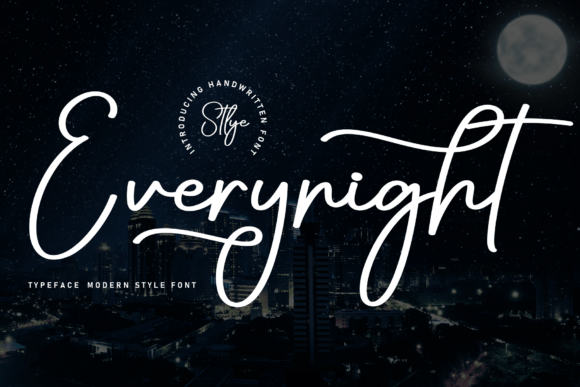
Journey into the realm of elegance and sophistication, where words dance across the screen with grace and charm. Meet Everynight Font, a script font family that captivates the senses with its mesmerizing beauty and handwritten flair. Crafted by the talented andikastudio, Everynight Font is the ultimate choice for designers seeking to elevate their projects to new heights of visual appeal.
With Everynight Font, your designs will transcend the ordinary and enter the extraordinary. Its intricate ligatures and delicate swashes intertwine to create a stunning symphony of visual harmony. Let your imagination soar as you witness your words transform into captivating works of art, leaving a lasting impression on all who behold them.
Immerse yourself in the versatility of Everynight Font, a font that effortlessly adapts to a wide array of design styles. Whether you're creating stunning logos, eye-catching social media graphics, or captivating print materials, Everynight Font will elevate your creations with its timeless appeal. Experience the joy of seamless design as you effortlessly craft designs that exude both style and professionalism.
Unleash your creativity with Everynight Font, the ultimate tool for banner design. Watch in awe as your words take center stage, commanding attention with their captivating presence. Transform ordinary banners into captivating visual masterpieces that entice viewers and leave them longing for more. Everynight Font is the key to unlocking your design potential and leaving an indelible mark on the digital landscape.
Indulge in the beauty of Everynight Font, a font that whispers stories and ignites emotions. Every character is infused with a touch of magic, evoking a sense of nostalgia and romance. Transport your audience to a world of enchantment, where words come alive and dreams take flight. With Everynight Font, your designs will resonate with your audience on a profound level, creating a connection that transcends the boundaries of language.